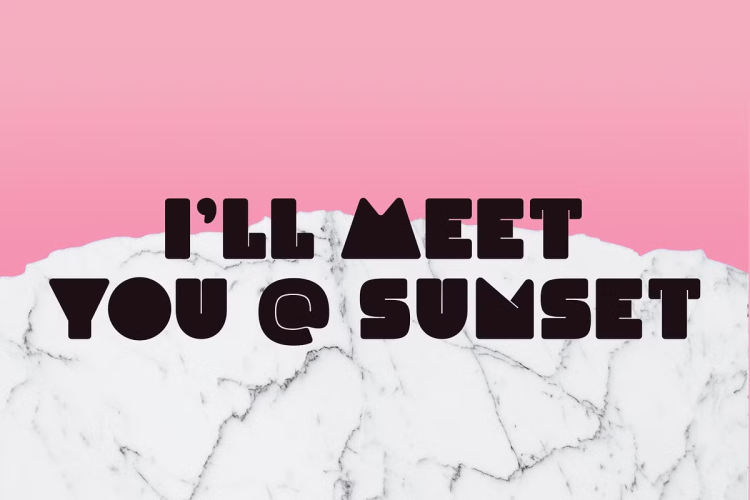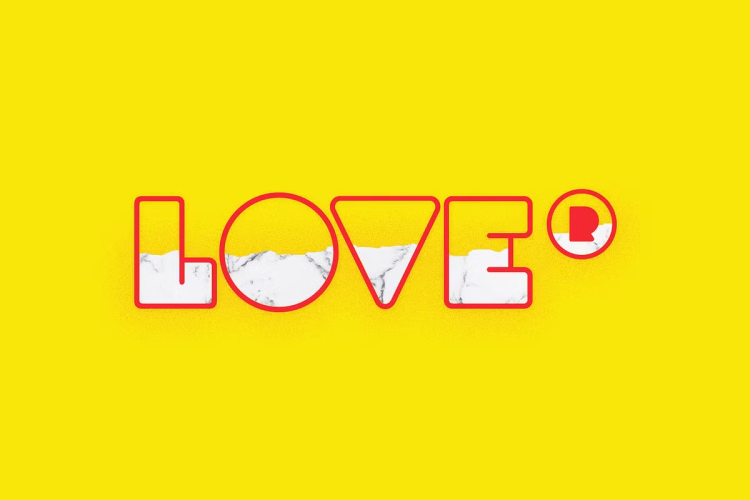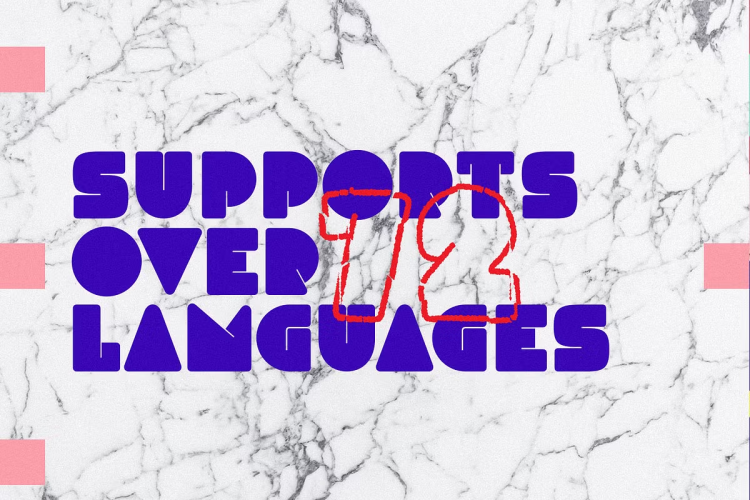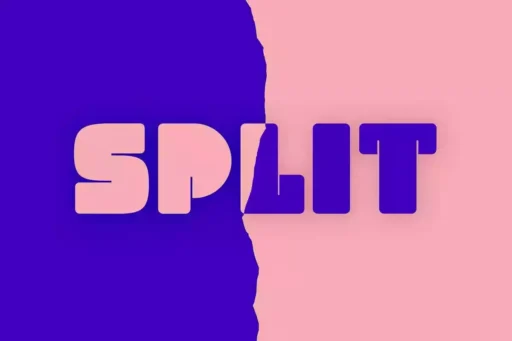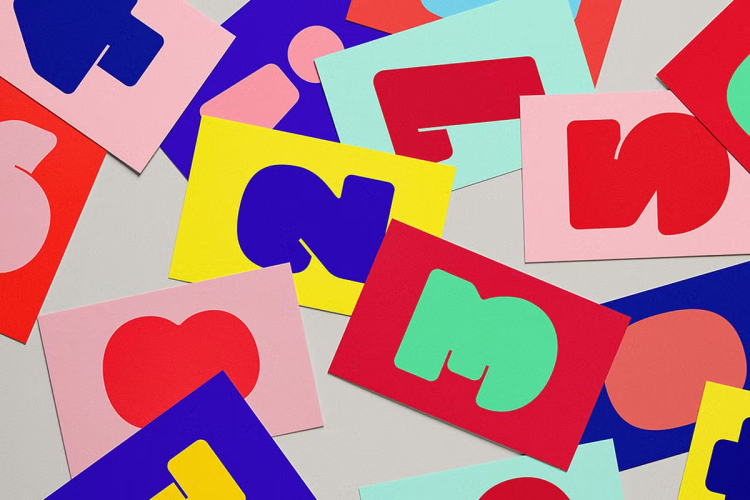
Split Font
Split is a strong and rather provocative display font by Types and Boats that has its roots in the stencils of the past but is sharp and trendy. The letters are based on fundamental geometric forms and have a very clean style with little detail to focus on their basic shapes. The typeface is a hybrid of Geometric and Square Sans Serif design but has rounded corners to give it a more casual appearance. Split comes in three distinct styles: There are three types of maps, namely, Outline, Filled, and Doodle maps.
Where Split Font works best
Split Font is built for size: event posters, hero headlines and billboard-style layouts.
High contrast display type like Split Font reads instantly in thumbnails and motion graphics.
What is Split Font good for?